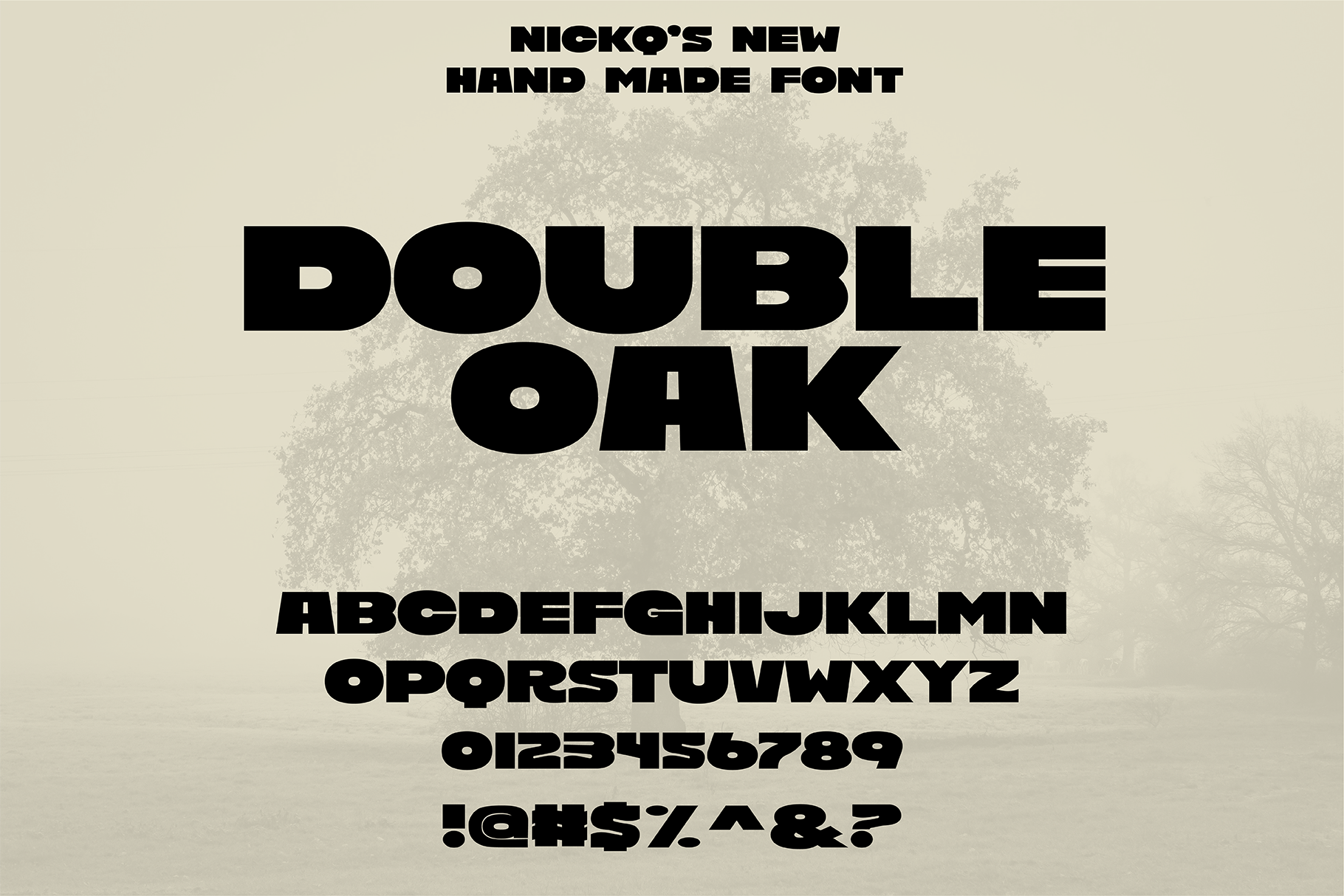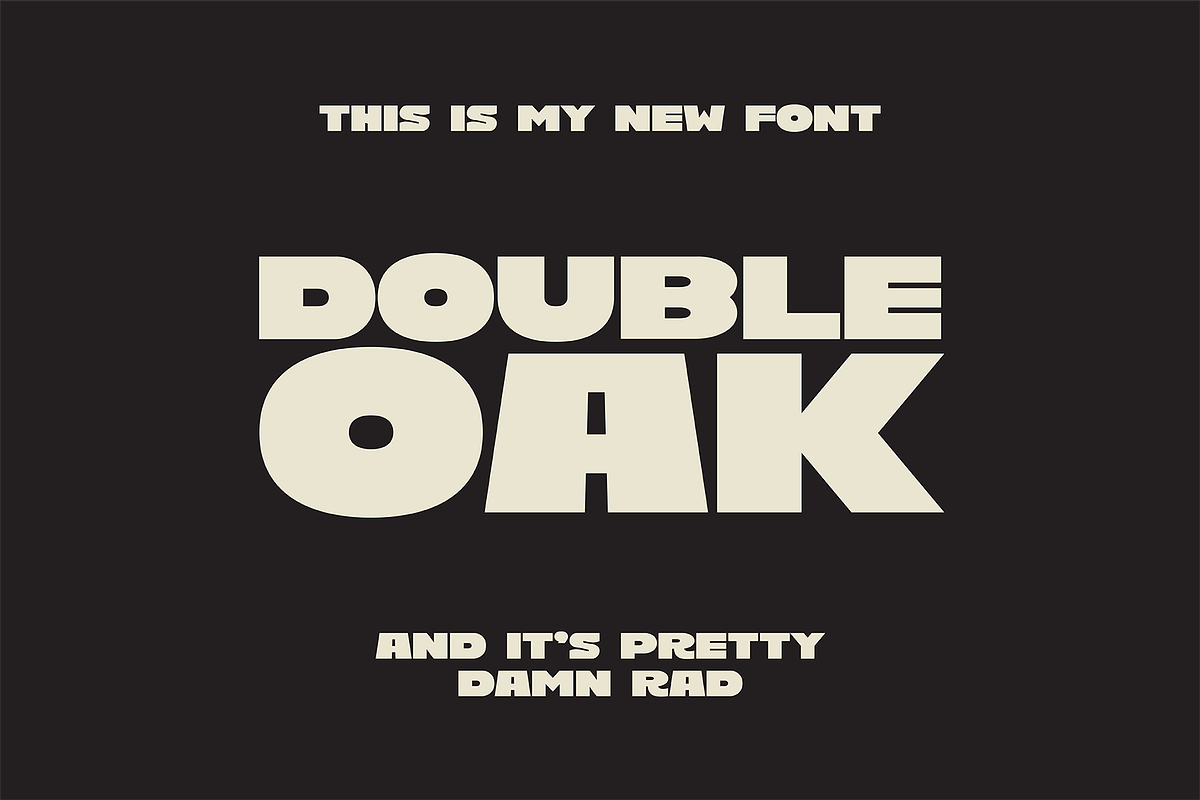
Double Oak Hand Drawn Font
Double Oak is my newest font and I couldn’t be more excited! This is one of my absolute favorite fonts i’ve made and also one of my cleanest to date. This one is really great for posters, t-shirts and anything that needs a bold look!